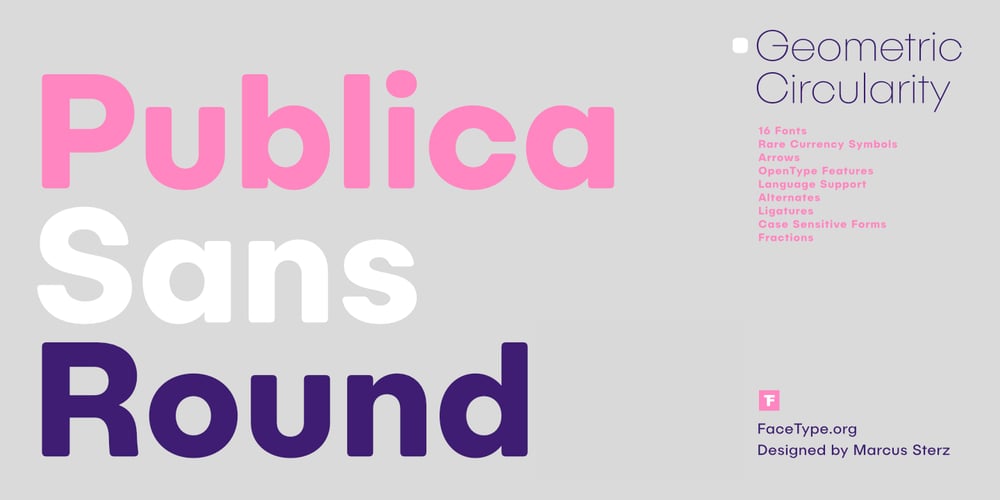
Publica Sans Round
Publica Sans Round font
Publica Sans Round Font Family was designed by Marcus Sterz and published by FaceType. Publica Sans Round contains 16 styles and family package options. Publica Sans Rounded is the rounded version of Publica Sans. A clean geometric typeface, equipped with a variety of OpenType features to give you all you need for great typography: Alternates, arrows, rare currency symbols, case sensitive forms, various sets of figures and discretionary ligatures. Publica Sans Rounded has two other sisters: Publica Play and Publica SlabTake a close look at our gallery (especially ‘OpenType Features 1–6’) to discover the versatility of Publica Sans.AlternatesGive your typography a certain spin with the variety of alternate letters provided.CurrencyYou need to set prices in exotic countries? No problem: Publica Sans gives you loads of rare currency symbols.Case Sensitive FormsSometimes you write in all caps and there are some symbols (e.g. brackets) that need some extra treatment to make it look perfect – that’s what case sensitive forms are for.FiguresPublica Sans provides 6 sets of figures, like lining, tabular, oldstyle, numerators …Discretionary Ligatures can make your logo or headline look spicy. So there are plenty of them.